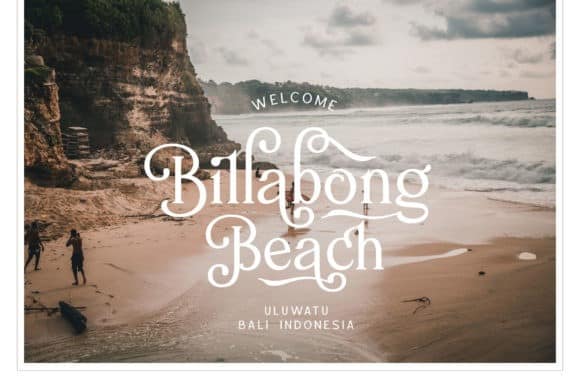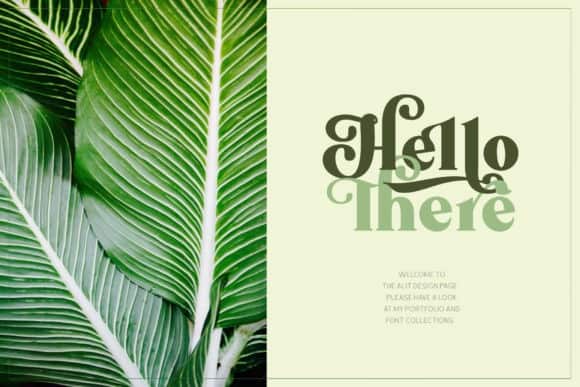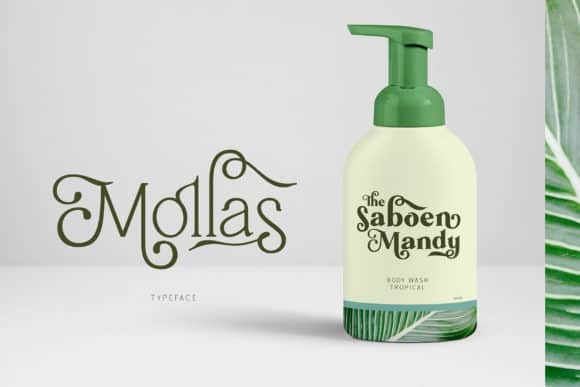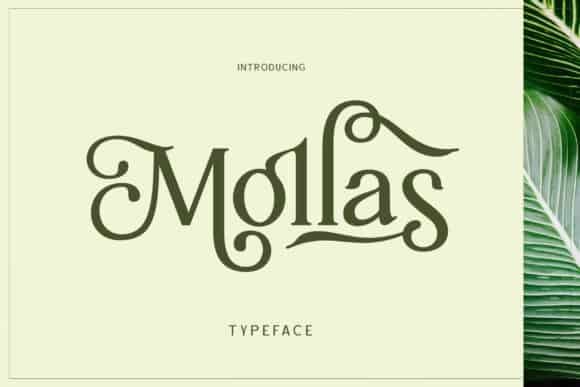
Mollas Serif Font
Mollas Serif Font is modern serif font. It’s designed and shared by Alit Design. This font feels playfully nostalgic and delivers an incredible vintage aesthetic. Made for any professional project branding. Use this display font to add that special retro touch to any design idea you can think of! It is the best for branding, printing, wedding and quotes. Every letter has a unique and beautiful touch.